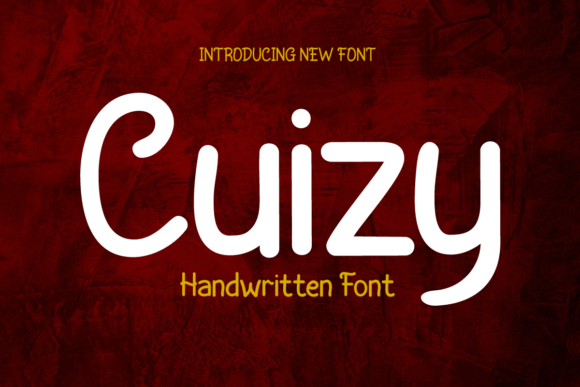
Immerse yourself in the enchanting world of Cuizy Font, a meticulously crafted script font family that exudes personal charm and uniqueness. Designed by the talented twinletter, Cuizy Font is not just a collection of letters; it's an art form that transforms your projects into captivating masterpieces. Its intricate strokes, reminiscent of handwritten text, dance across the page with fluidity and grace, adding a touch of warmth and authenticity to your creations.
Step into the spotlight with Cuizy Font, the ultimate choice for display ads that demand attention. Its bold and expressive characters command presence, ensuring your message stands out from the crowd. Let Cuizy Font be your ambassador, conveying your brand's personality with eloquence and flair. Whether it's a captivating headline, an alluring call-to-action, or an informative product description, Cuizy Font delivers your message with impact and leaves a lasting impression.
Unleash your creativity and explore the boundless possibilities of Cuizy Font. Its versatility extends beyond display ads, making it a perfect fit for invitations, posters, branding materials, and social media graphics. Transform ordinary text into captivating works of art, adding a touch of elegance to your wedding invitations, creating posters that speak volumes, or crafting brand identities that exude sophistication. With Cuizy Font, your designs will radiate a charm that captivates and enchants.
Cuizy Font is more than just a font; it's an experience. It's an invitation to express yourself freely, to let your creativity flow, and to make a statement that reflects your unique style. Its carefully crafted characters evoke a sense of nostalgia, reminiscent of handwritten letters that carry the weight of emotions. Each stroke, each curve, and each flourish tells a story, adding depth and meaning to your designs.
Embrace the magic of Cuizy Font and elevate your projects to new heights. Let its enchanting charm infuse your creations with a touch of elegance, a dash of playfulness, and a whole lot of heart. Download Cuizy Font today and embark on a creative journey that will leave you spellbound.